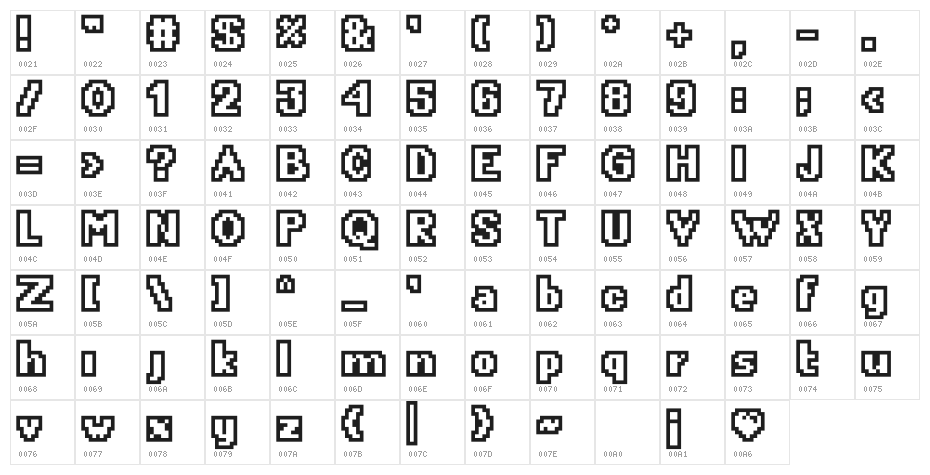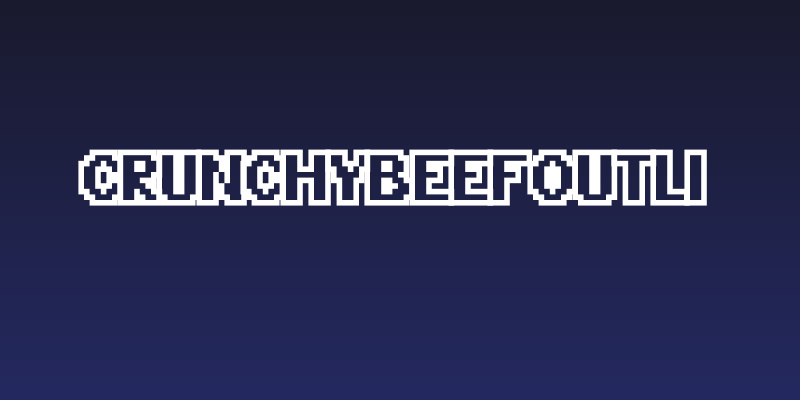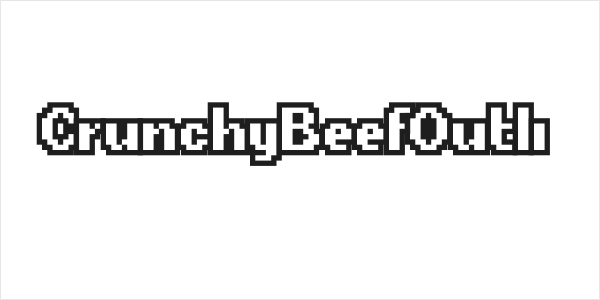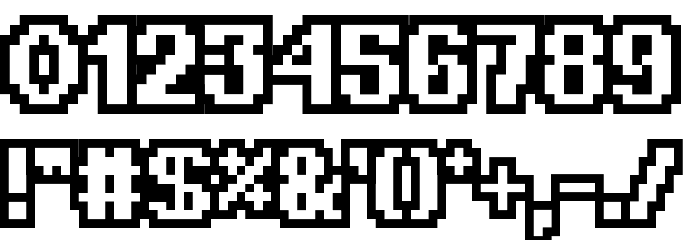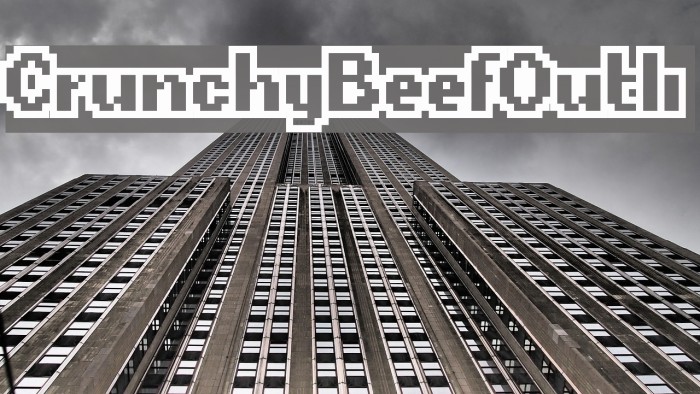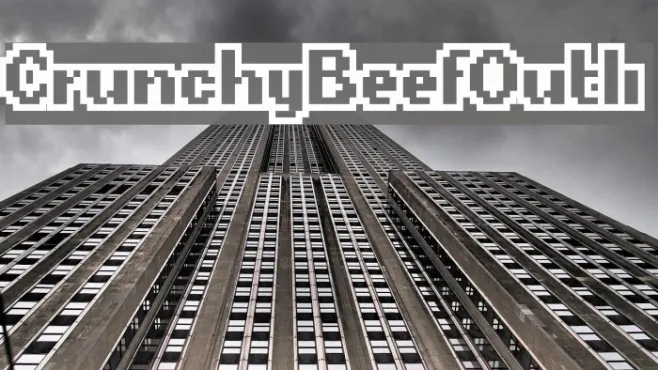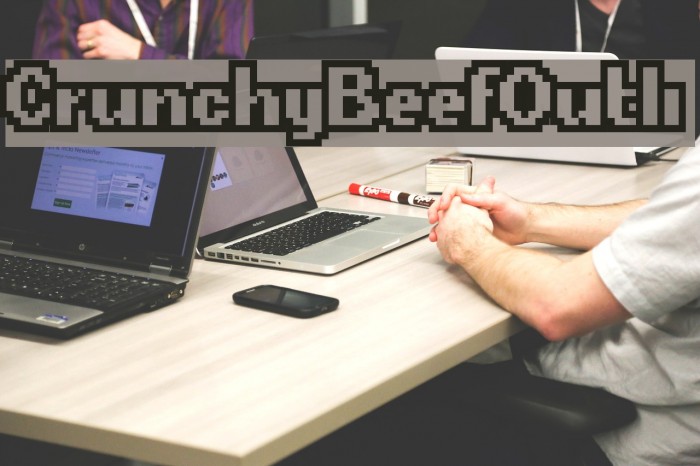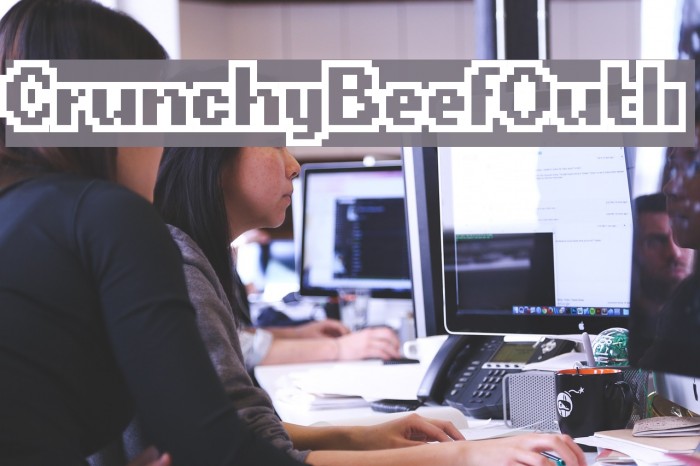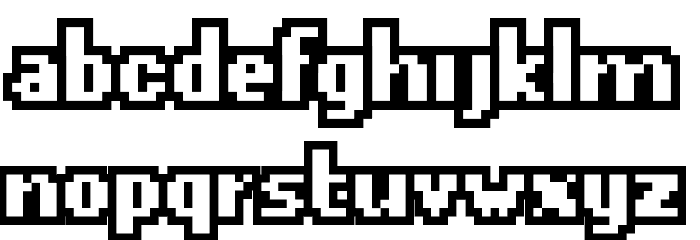
CrunchyBeefOutli Font
CrunchyBeefOutli Description
This font features a bold, blocky style with a distinct outline that gives it a three-dimensional appearance. The characters are uniformly wide, creating a consistent and cohesive look across both uppercase and lowercase letters. The geometric design is reminiscent of retro video game graphics, with sharp angles and a pixelated aesthetic. The numbers and special characters maintain the same bold outline, ensuring they stand out prominently. This font's unique style makes it ideal for projects that require a strong visual impact.
CRUNCHYBEEFOUTLI UPPERCASE
CRUNCHYBEEFOUTLI LOWERCASE
CRUNCHYBEEFOUTLI OTHER CHARS
| Overall Style | Retro, Decorative |
| Proposed Projects | Ideal for video game graphics, retro-themed posters, and eye-catching headlines. |